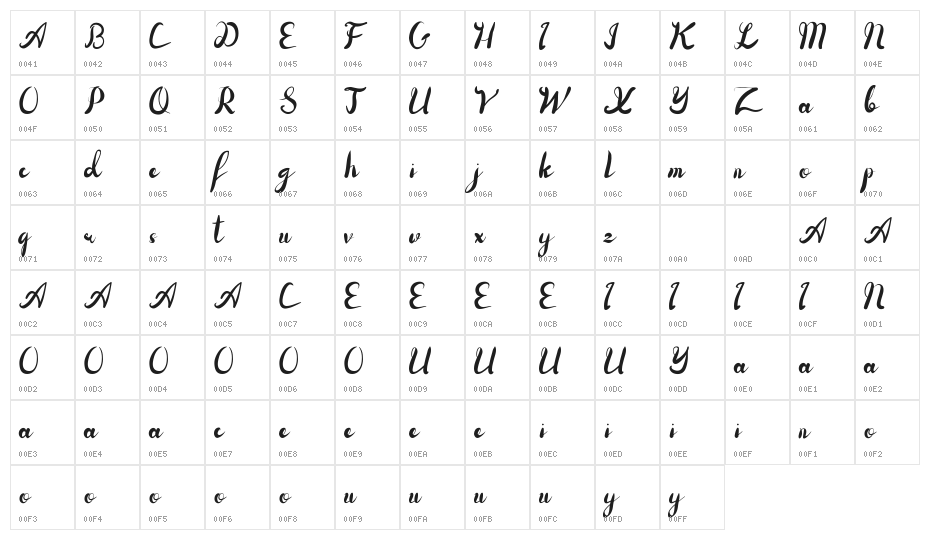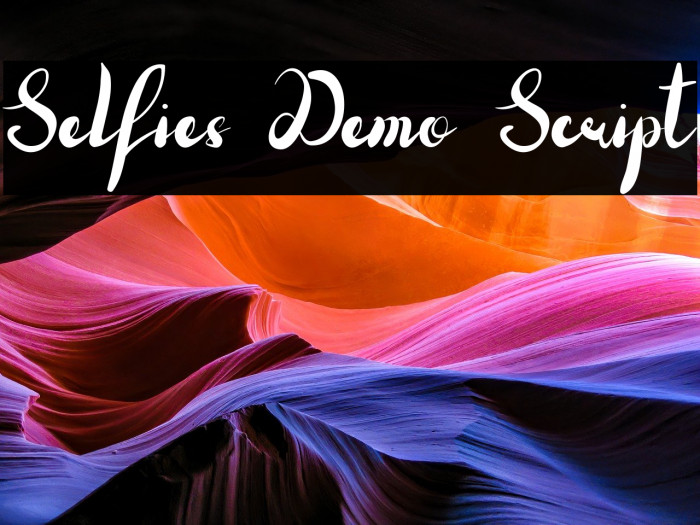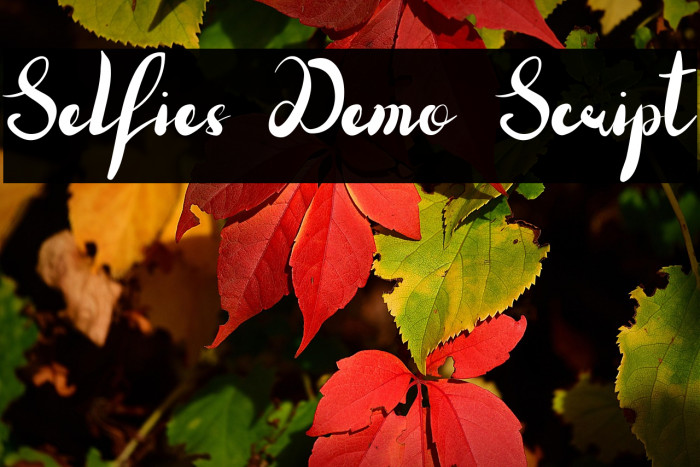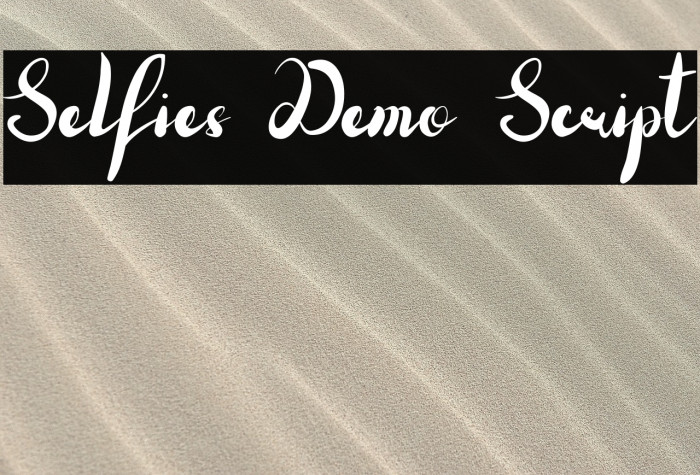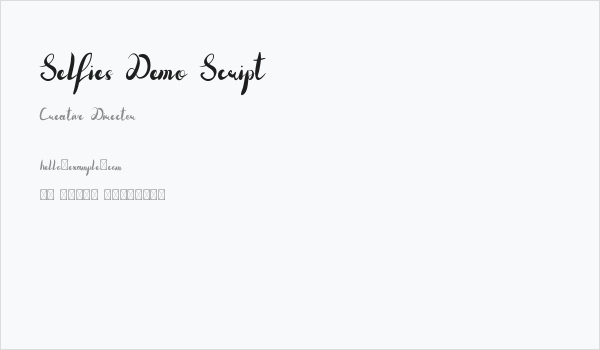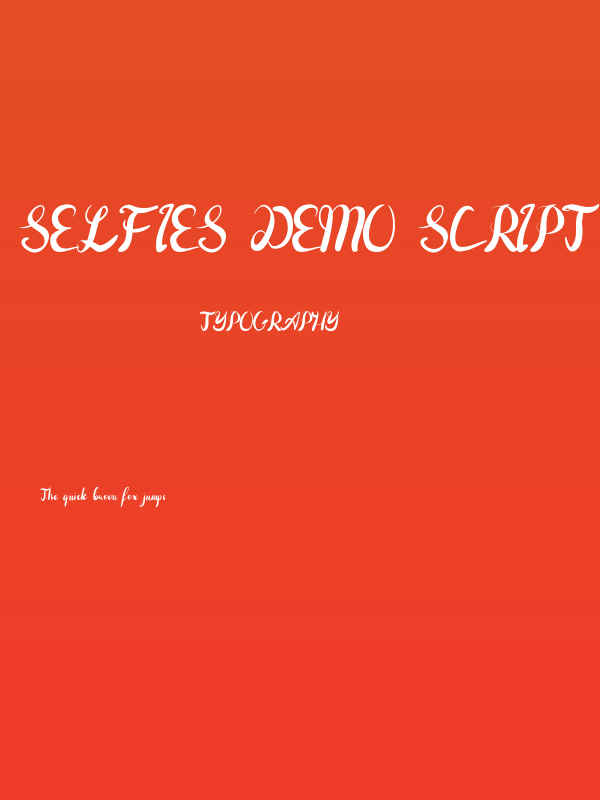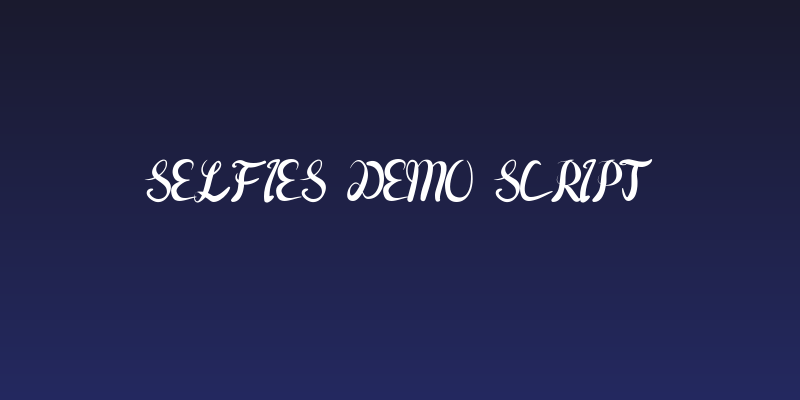
Selfies Demo Script Font
| Anwendungsfall | Headlines, Logos, Invitations |
| Vorgeschlagene Projekte | Ideal for wedding invitations, elegant branding, greeting cards, and decorative headlines. |